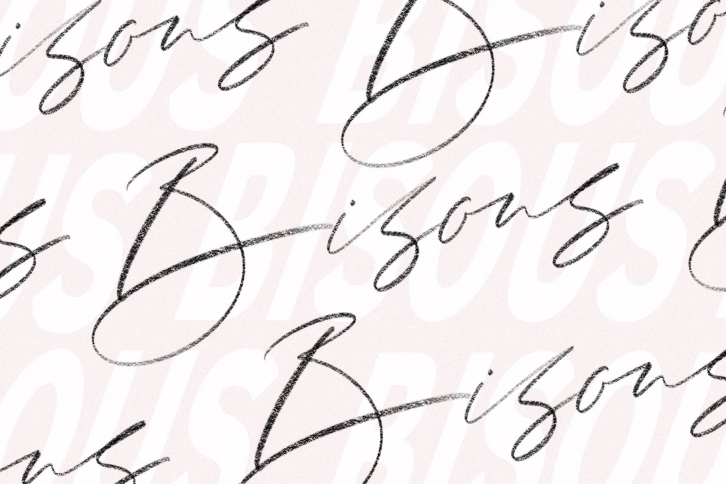
Say hello to "Bisous"!
It's a causal font duo including a hand-written pencil SVG font (+ solid version) and a minimal sans serif. This duo is the perfect fit for all feminine logo projects, printed quotes, lovely wedding invitation cards, social media headers, product packaging and a lot more!
Each letter has been written with a brush and watercolour and lots of ⤠many times :)
The OpenSVG technology is just amazing because it allows us to have so much more detail & transparency in the letters, which can give your text a realistic hand-painted look.
Bisous SVG (uppercase & lowercase letters, numbers, punctuation and ligatures) - this is the OpenSVG version of the font. All the letters are basically bitmap images (instead of vectors) - each letter has been painted a dozen of times.
Bisous Solid - basically the same as above, but a vectorised, normal version for people who are not able to use the SVG version but still want to use the font. Remember that this version doesn't have the paint look or transparency.
Bisous Sans - a sans version that pairs perfectly with the script.